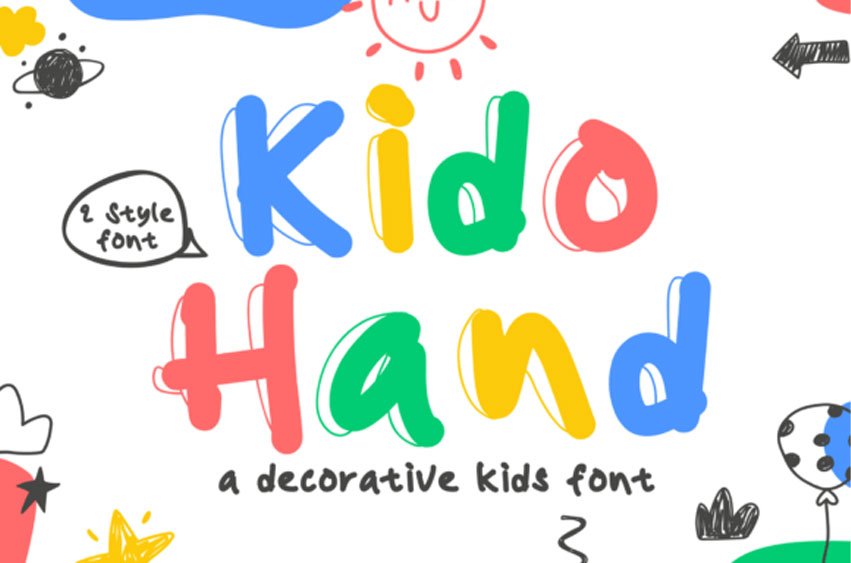
Kido Hand Font Unleash the spirit of childhood in your designs with Kido Hand, a delightful handwritten font echoing a child’s endearing penmanship. Created with a joyful yet unfettered vibe, this font introduces two distinct styles—crisp and ornamental—granting boundless flexibility for diverse design endeavors.
The raw, artisanal quality of Kido Hand makes it an ideal choice for children’s literature, schooling essentials, educational resources, heartwarming cards, unique branding, and imaginative DIY crafts. Radiating an engaging and expressive character, Kido Hand infuses genuine warmth and allure into any design layout. It is the go-to font for that touch of innocence and authenticity in creating buoyant posters, kid-centric packaging, or fanciful sketches; Kido Hand is the font that portrays the joy and genuine feel in your typography work.